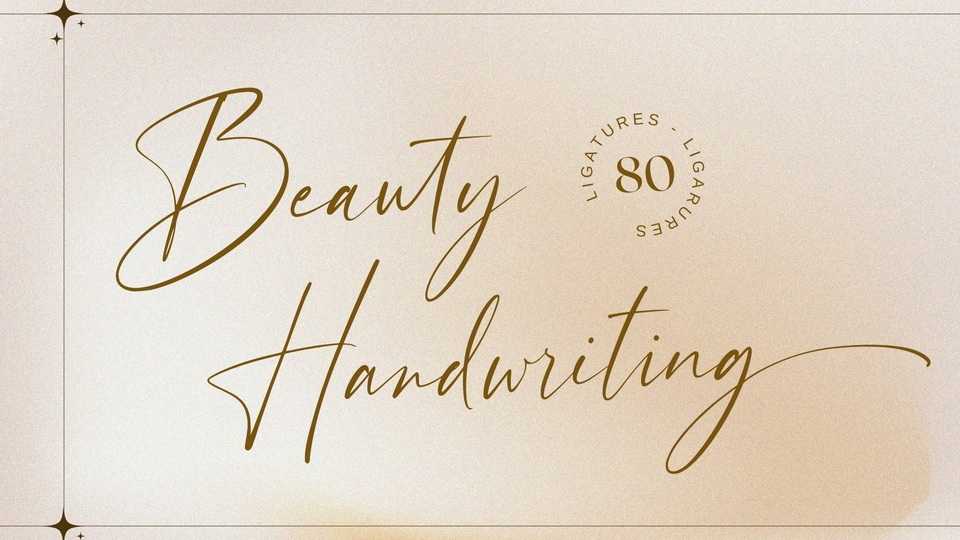
Download Beauty Handwriting font, a free-flowing script typeface created for anything else that requires high-quality vibes. Beauty Handwriting has a beautiful and balanced character, that fits well with the large design pool.